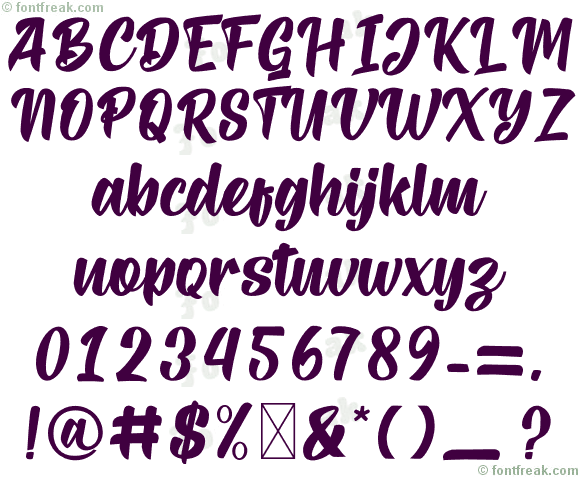
Reality Magic
About Reality Magic
The Reality Magic font by Eknoji Studio is a captivating script typeface that combines elegance with a touch of whimsy. This decorative font features fluid, sweeping strokes that create a sense of movement and enchantment. Its moderate stroke weight and subtle contrast make it versatile, allowing it to stand out without overwhelming the viewer. The generous spacing between letters contributes to its readability, making it suitable for various applications while maintaining its artistic flair.
Ideal for a range of creative projects, the Reality Magic font excels in wedding invitations where its romantic charm can set the tone for the occasion. It is also perfect for movie posters, especially those in the fantasy or adventure genres, as it evokes a sense of wonder and excitement. Restaurant menus can benefit from its stylish appearance, adding an inviting touch to the dining experience. Additionally, content creators looking to enhance their social media graphics or branding materials will find this font an excellent choice for capturing attention and conveying a sense of creativity.
The target audience for the Reality Magic font includes graphic designers, small business owners, and content creators who seek a unique and eye-catching typeface to elevate their projects. Whether you’re crafting a heartfelt invitation or designing promotional materials, this font is sure to leave a lasting impression.